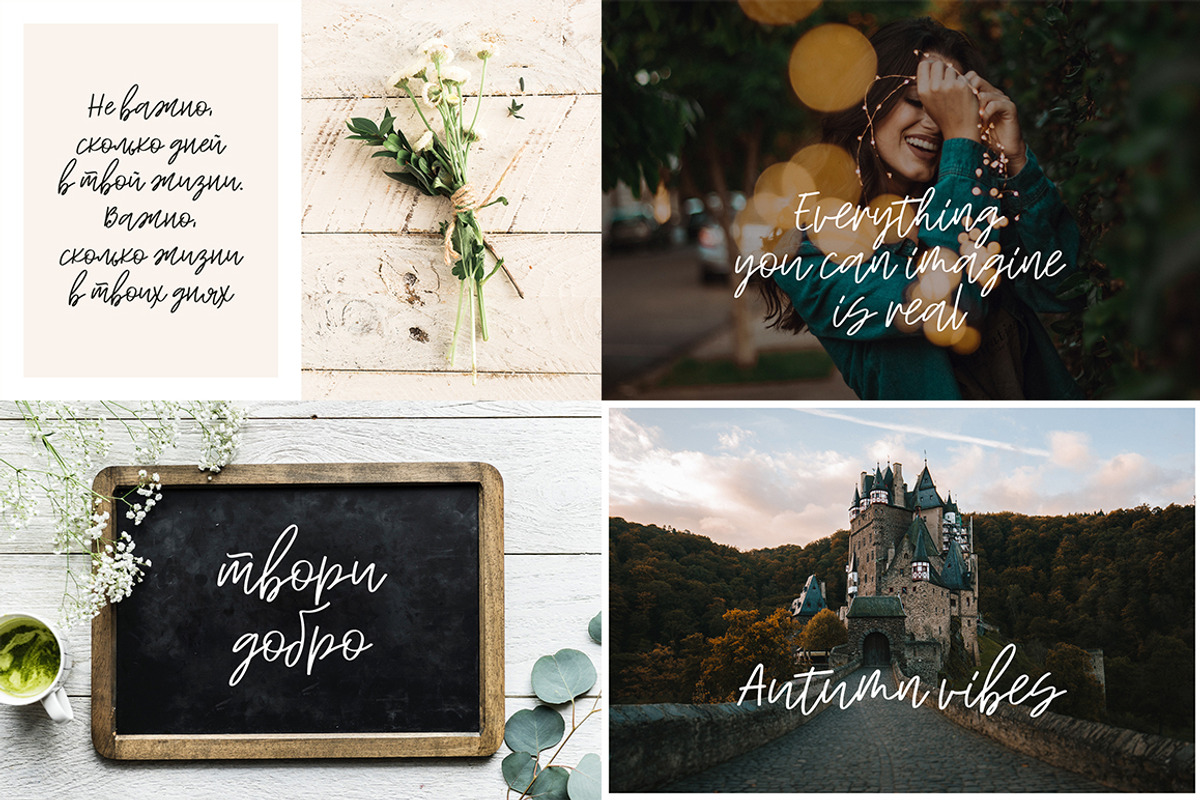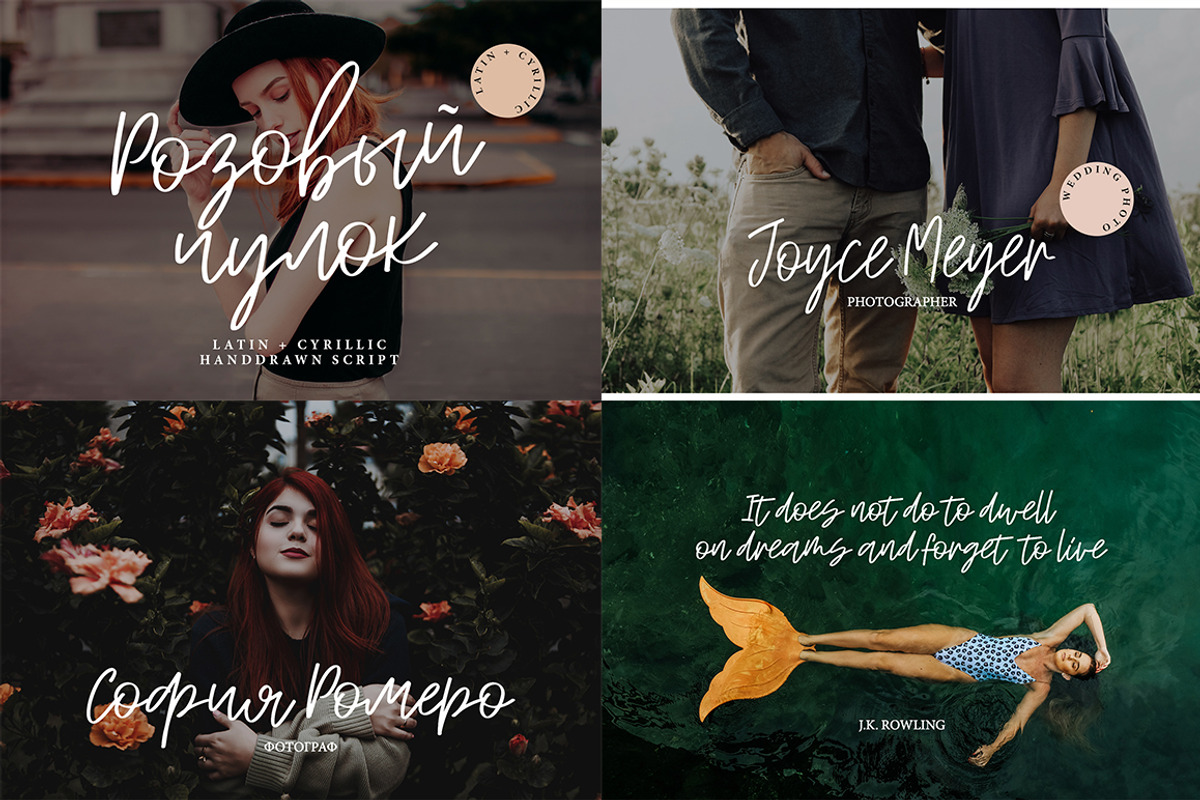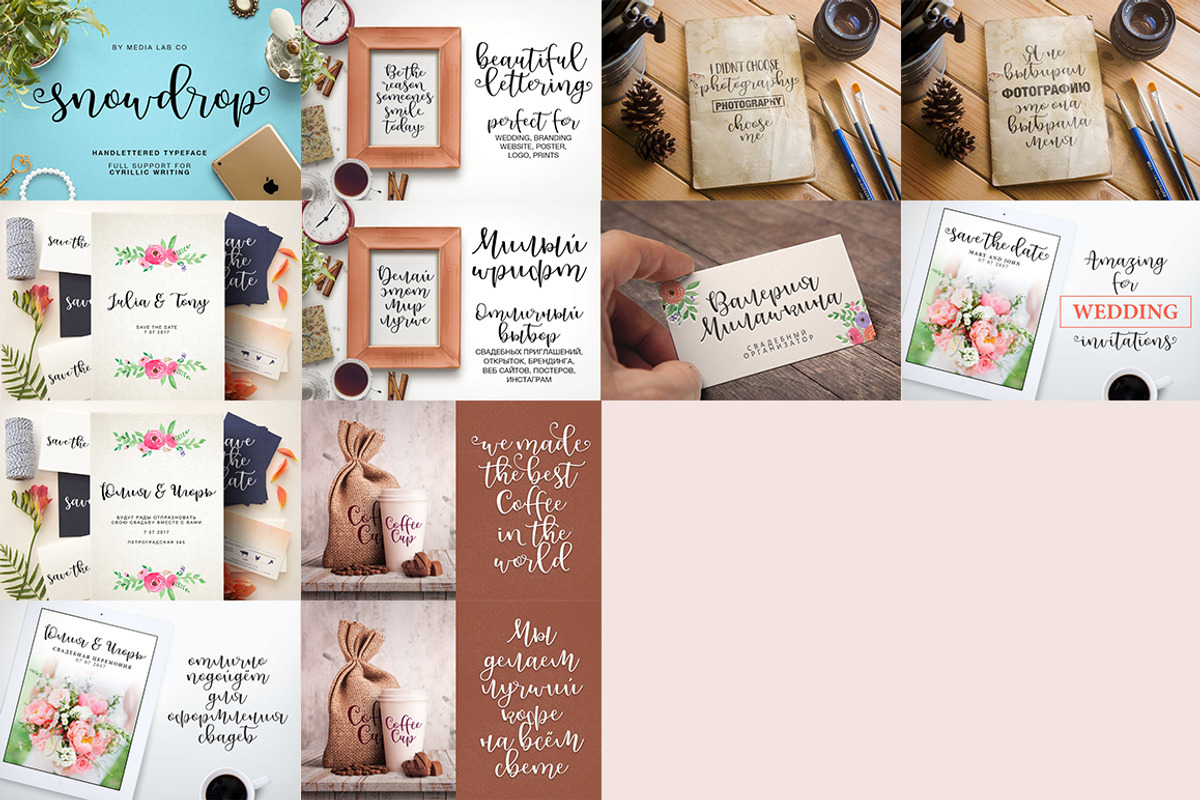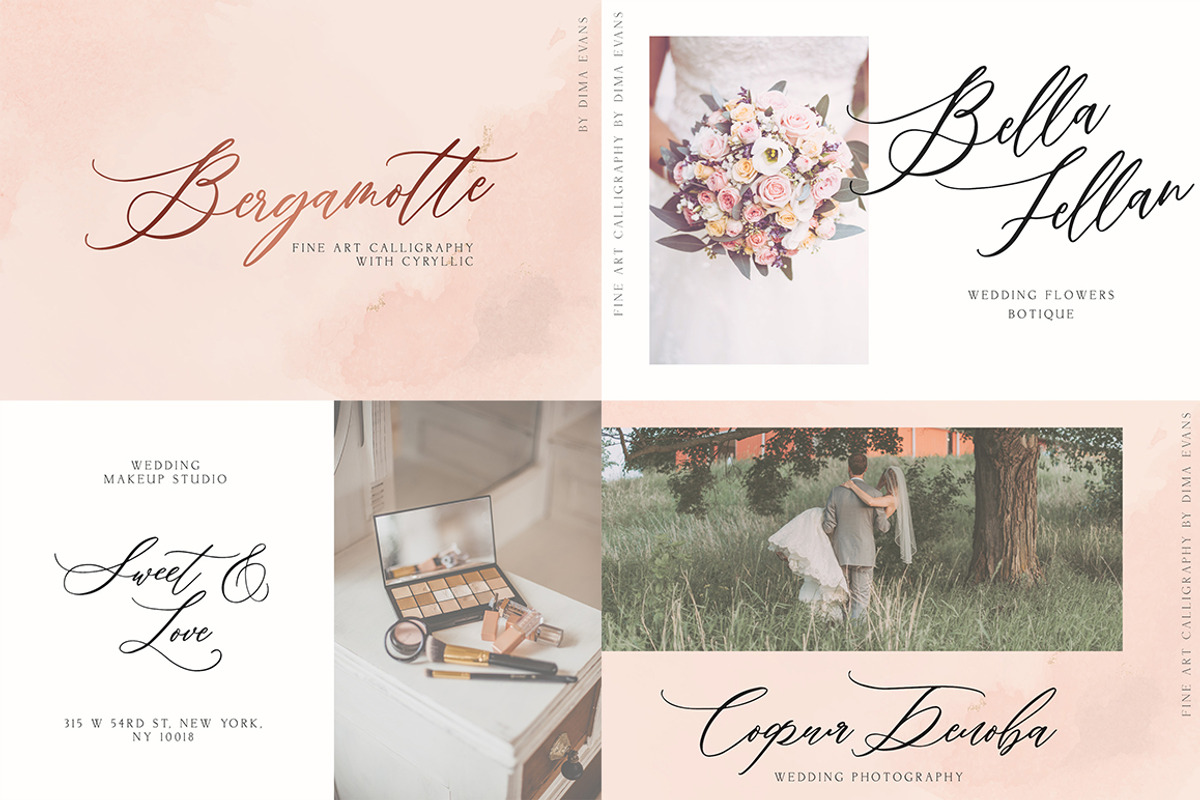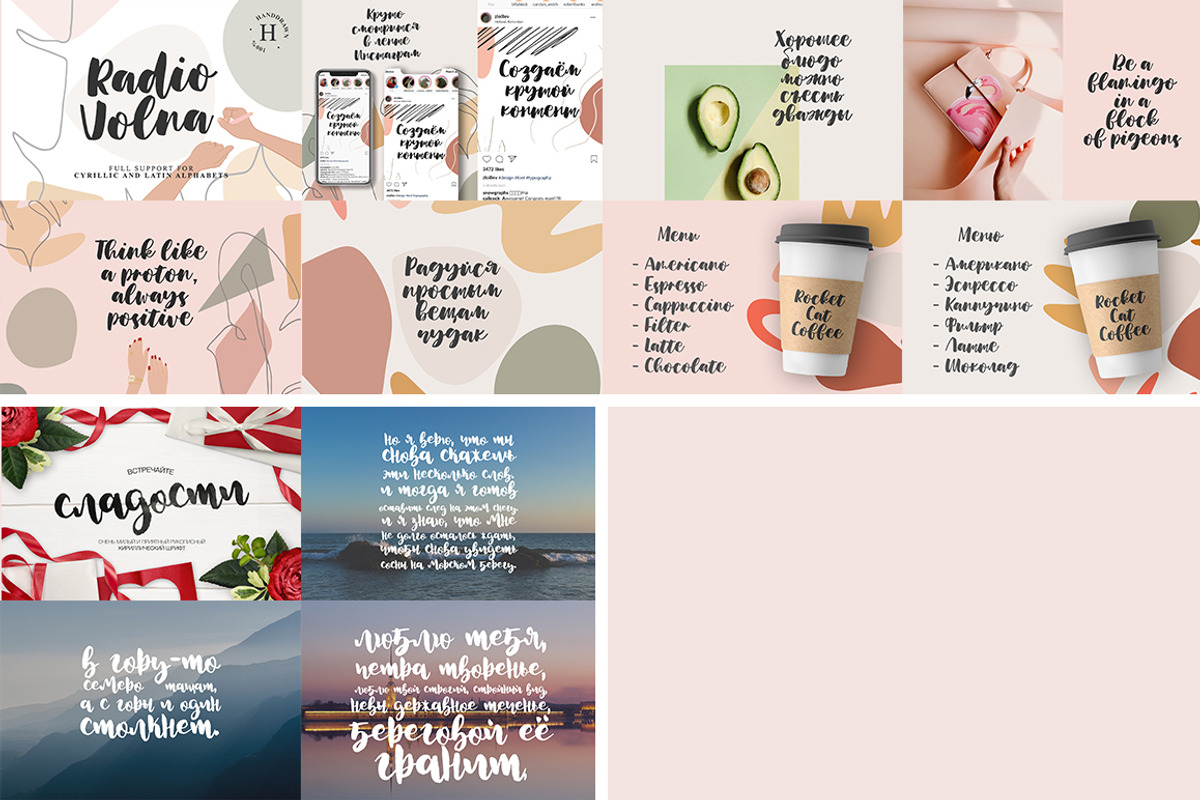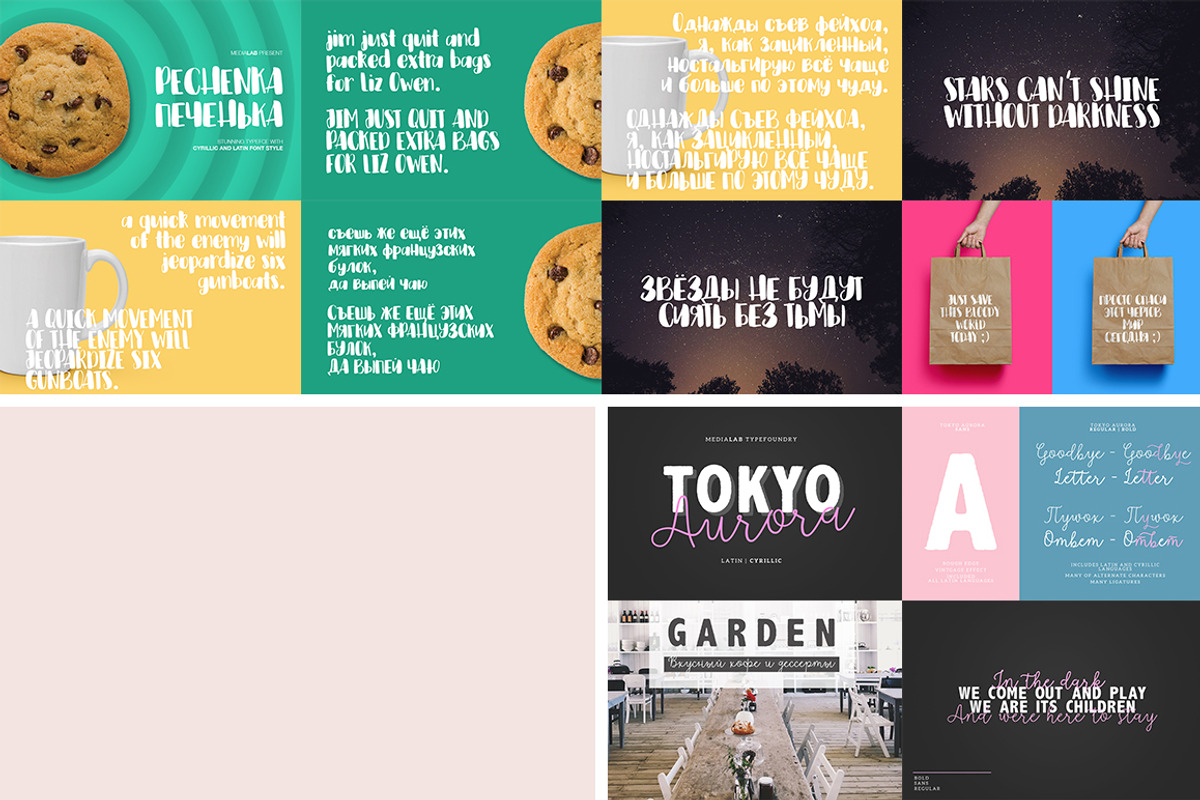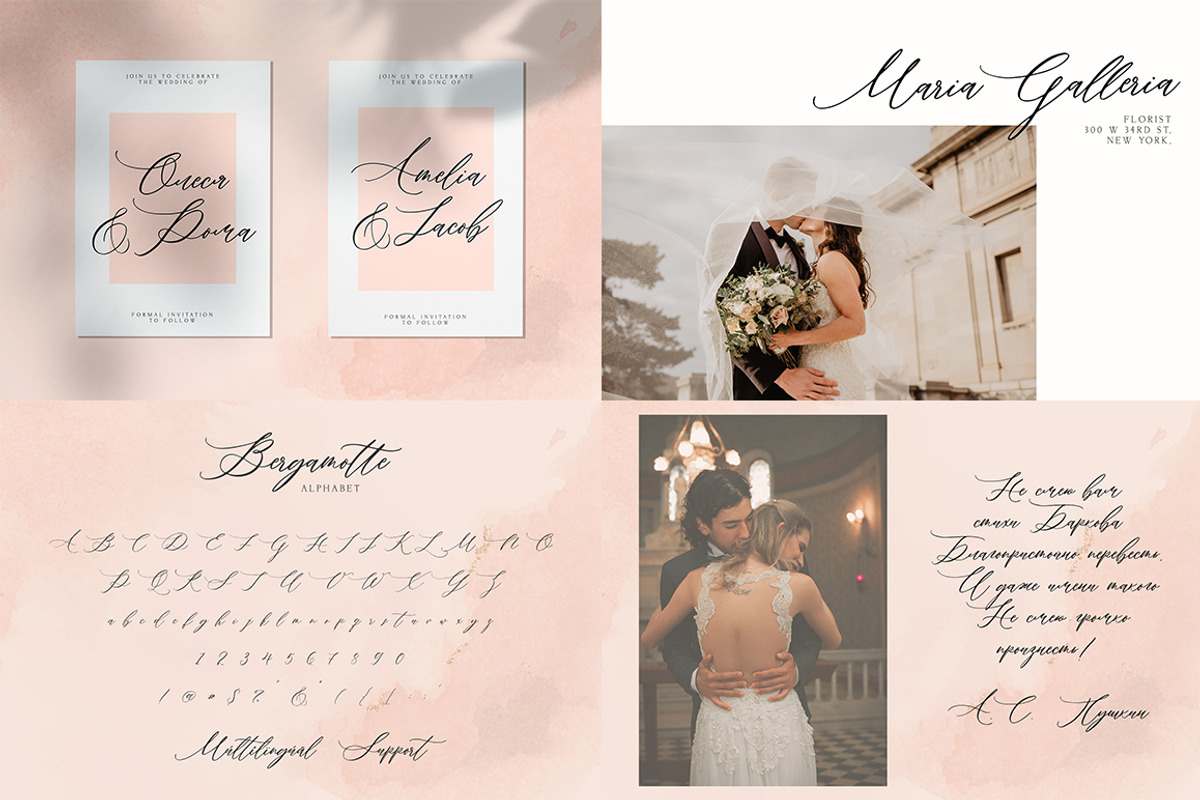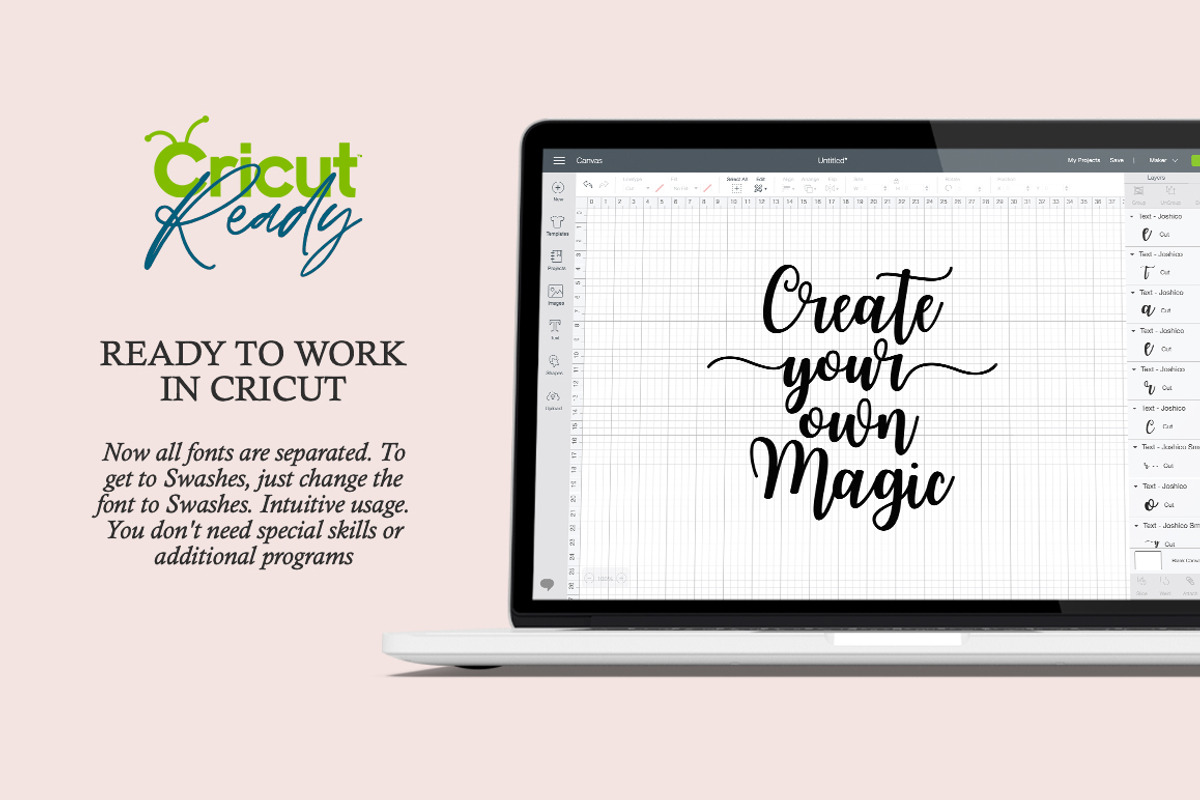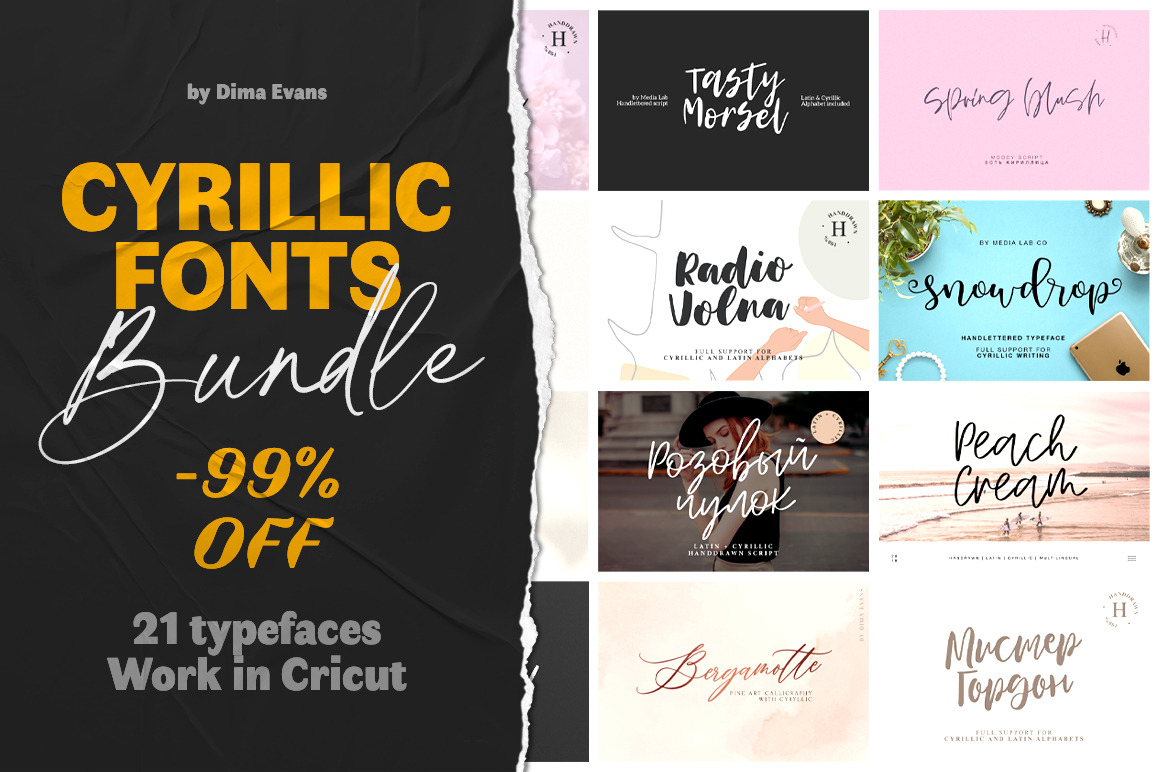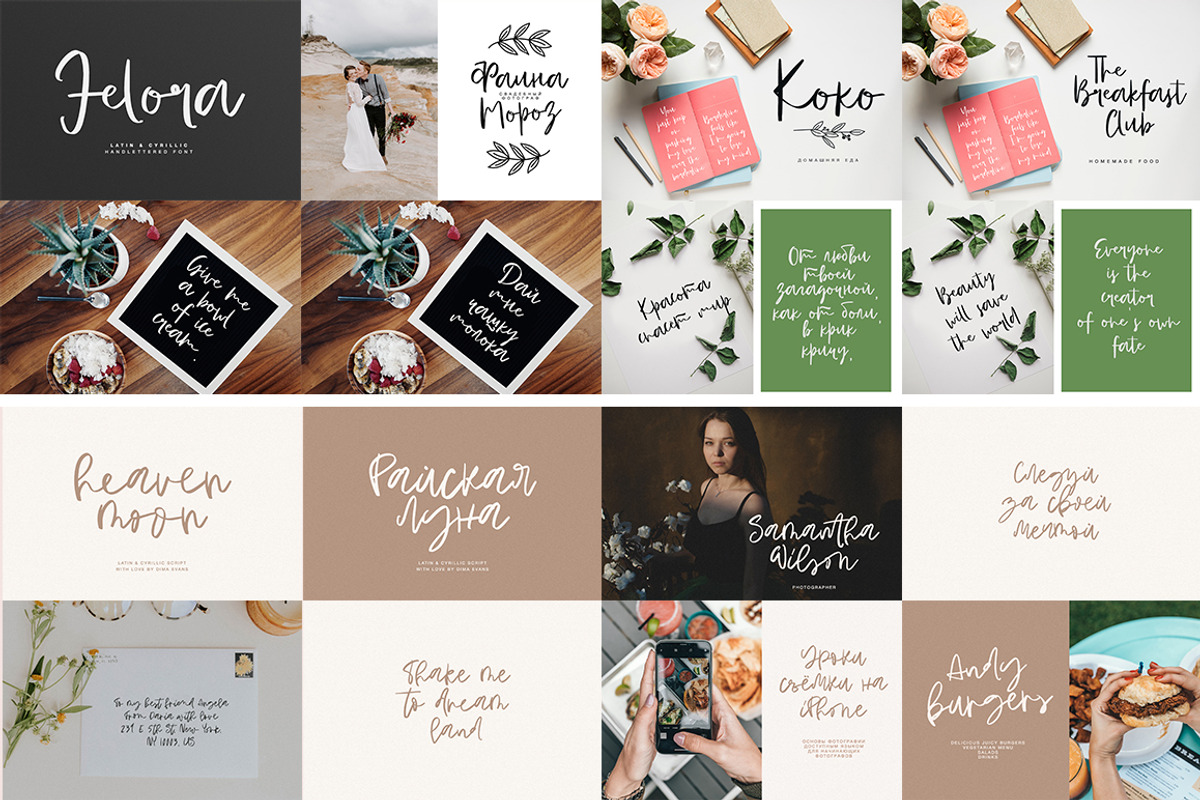
Cyrillic Fonts Bundle
All fonts in this bundle support Cyrillic
This package is very suitable for greeting cards, signature logos, holiday invitations, wedding invites, stationery, logos, inspirational quotes, posters, blog headers, packaging, custom prints and more!
- Preview photos do not show all fonts included in the package. Some fonts are not sold separately and are exclusive to this set
- Most, but not all fonts contain multilingual support.
Бандл Кириллицы
Все шрифты в этом пакете поддерживают кириллицу
Этот бандл идеально подходит для поздравительных открыток, фирменных логотипов, праздничных приглашений, свадебных приглашений, канцелярских принадлежностей, логотипов, вдохновляющих цитат, плакатов, заголовков блогов, упаковки, пользовательских принтов и многого другого!
- На картинках показаны не все шрифты включенные в пакет. Некоторые шрифты не продаются отдельно и являются эксклюзивными для этого набора